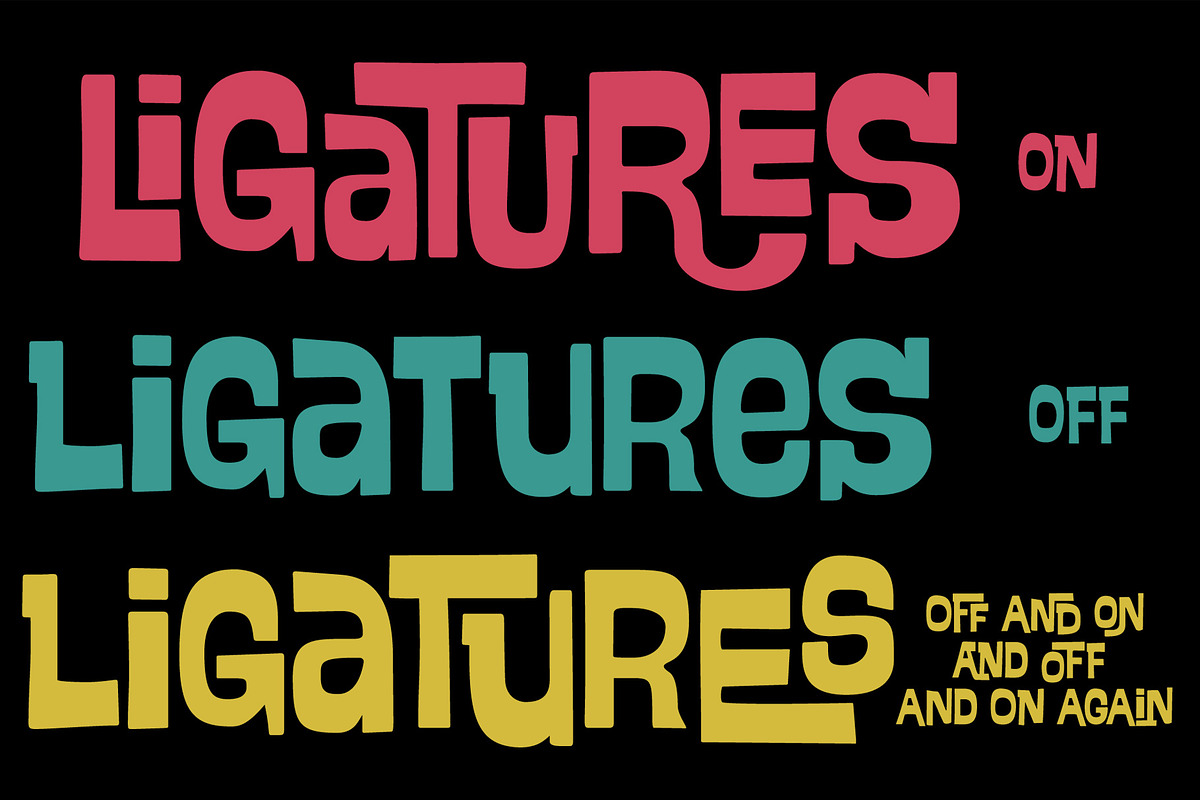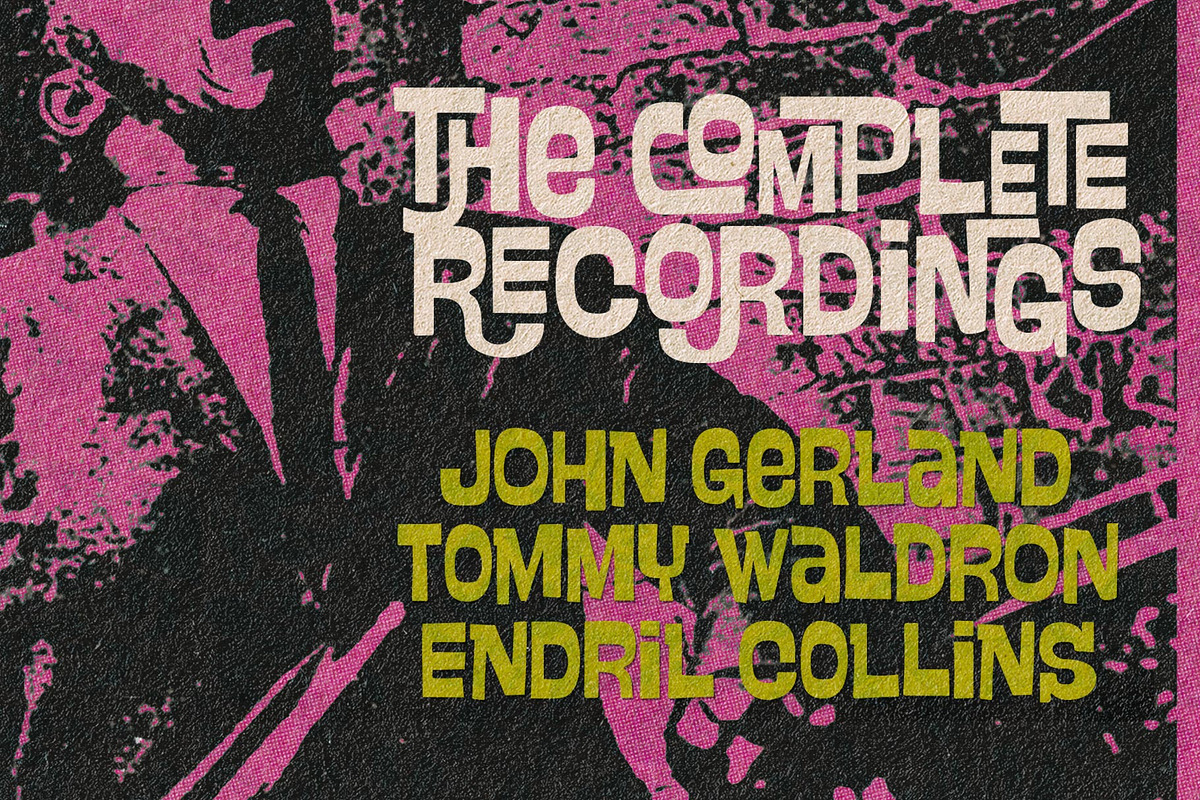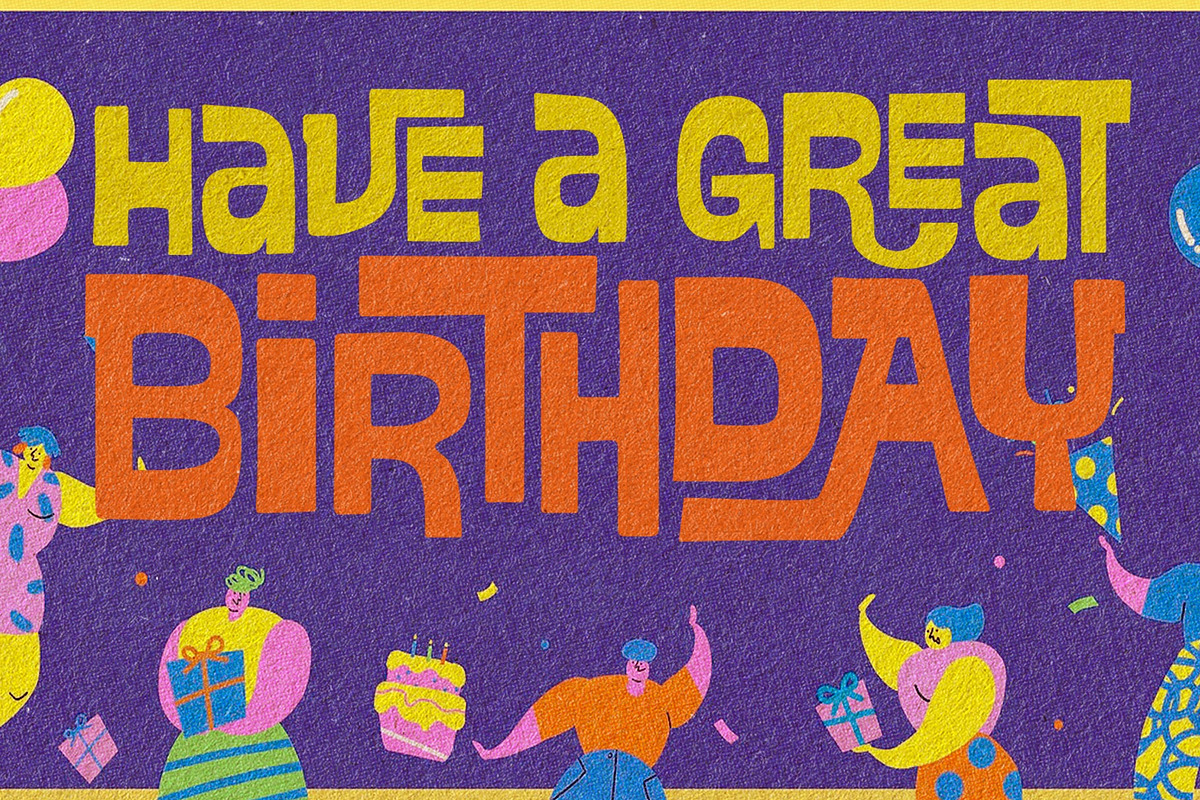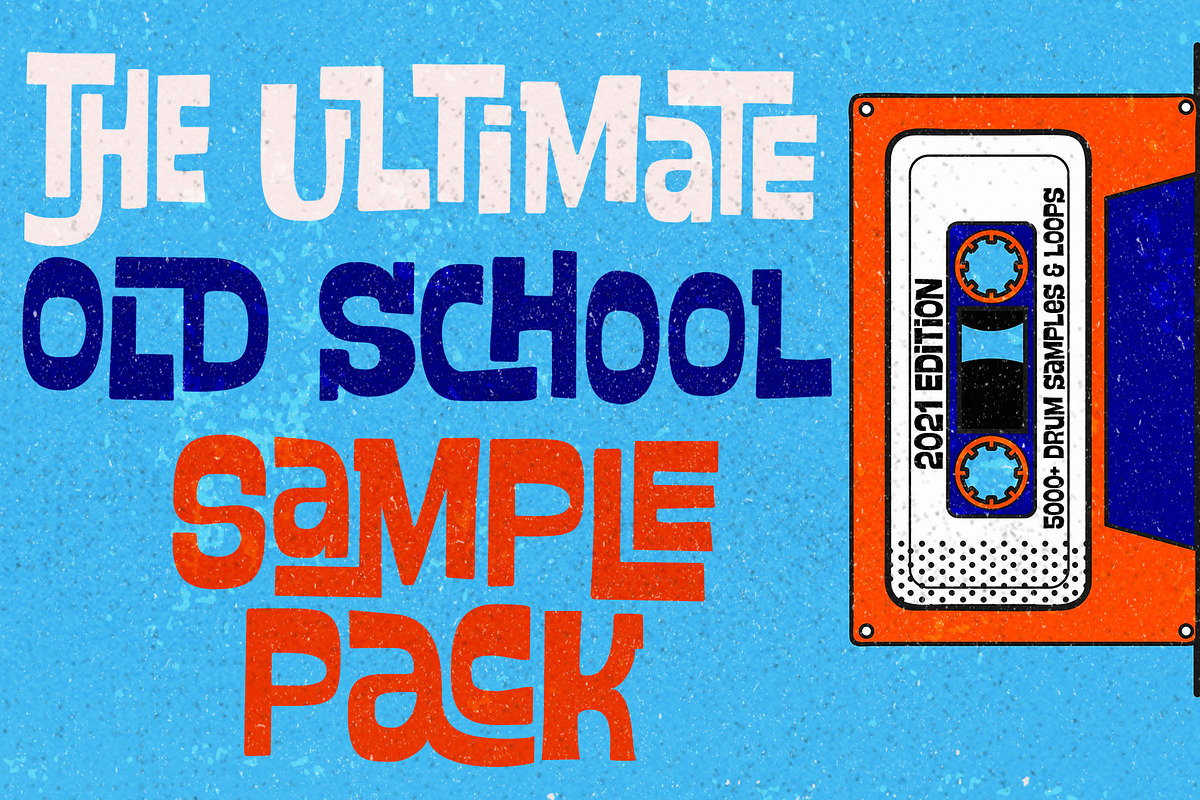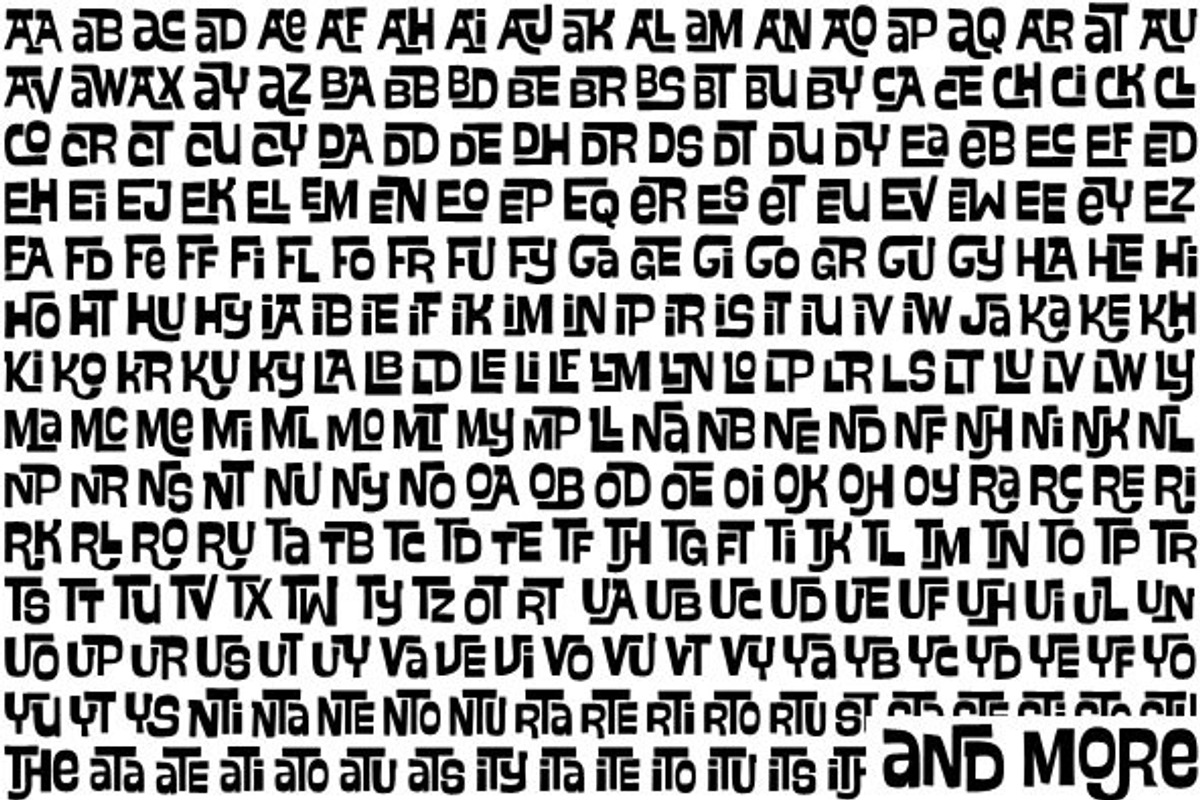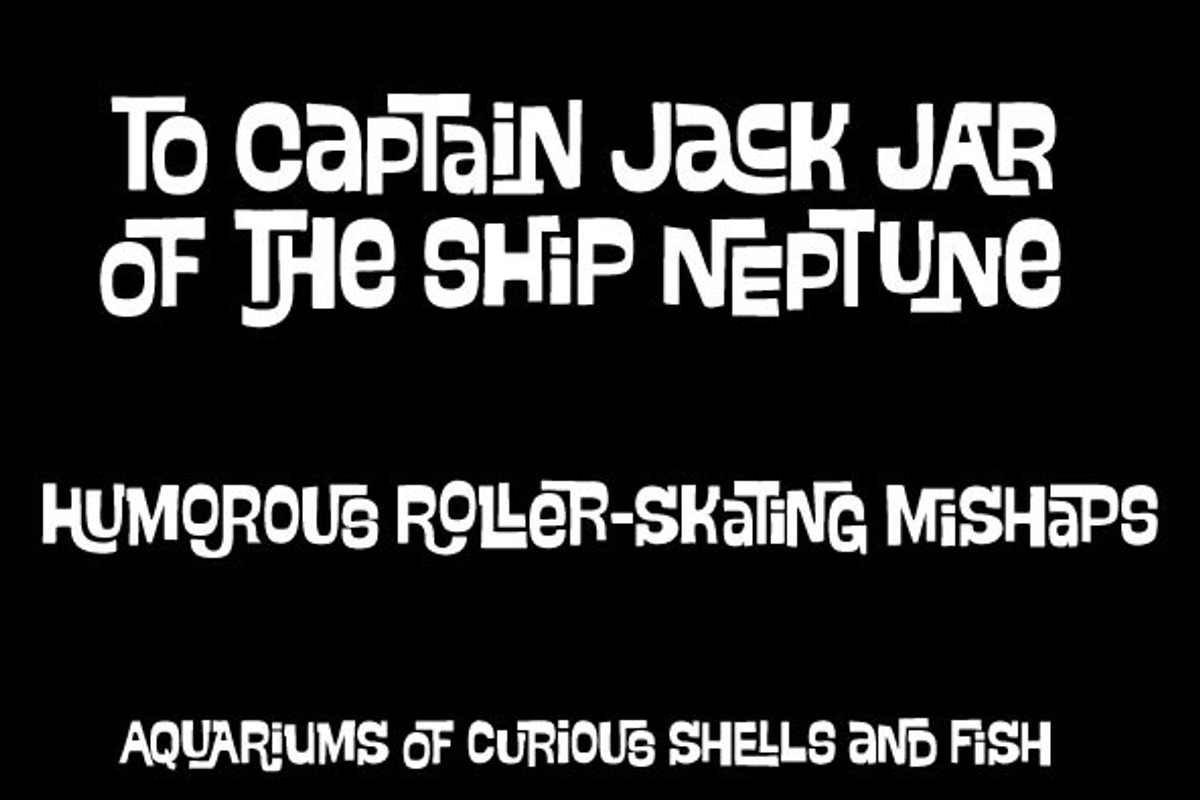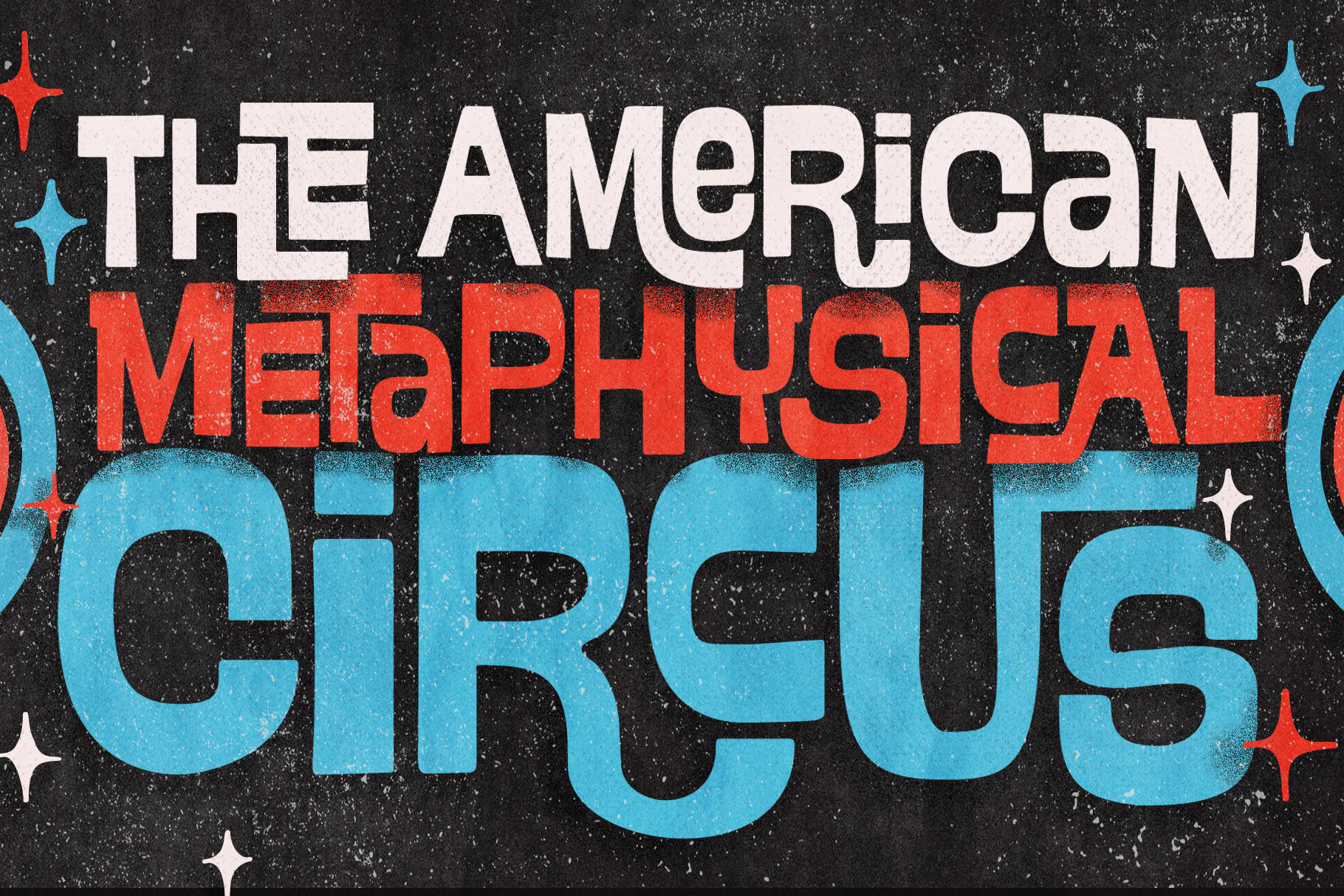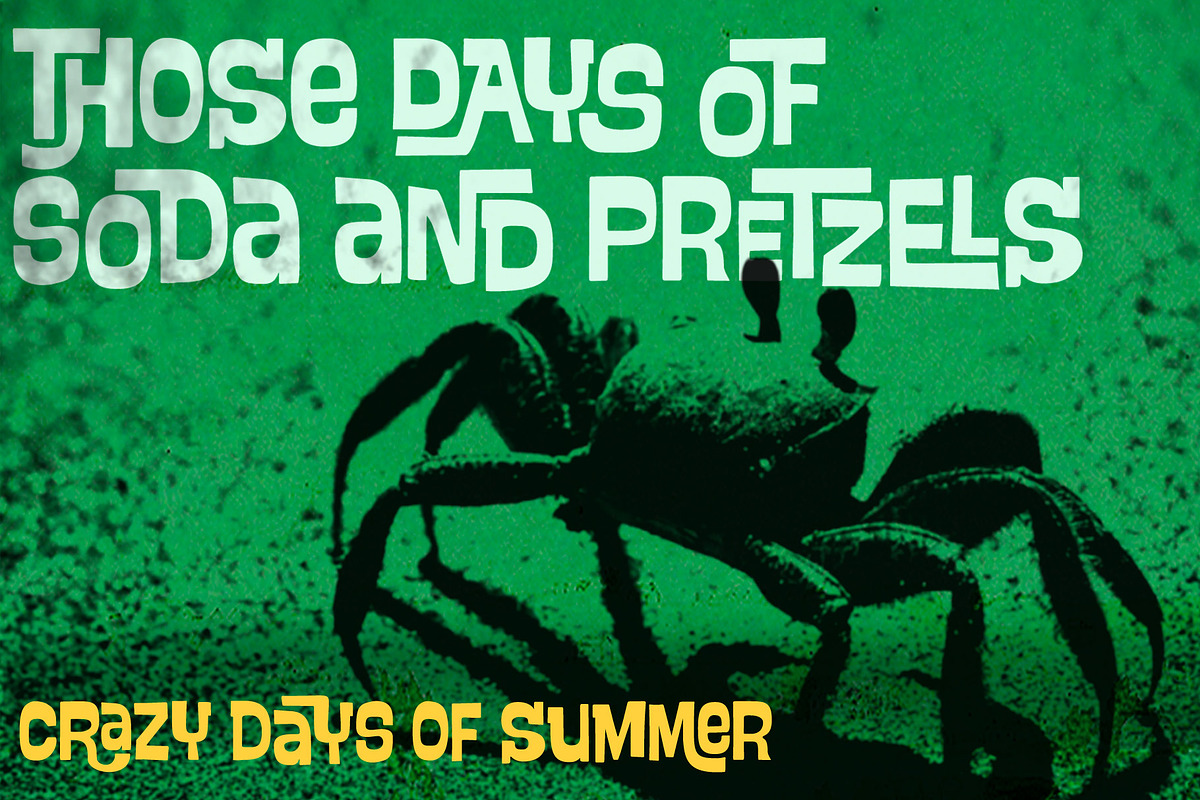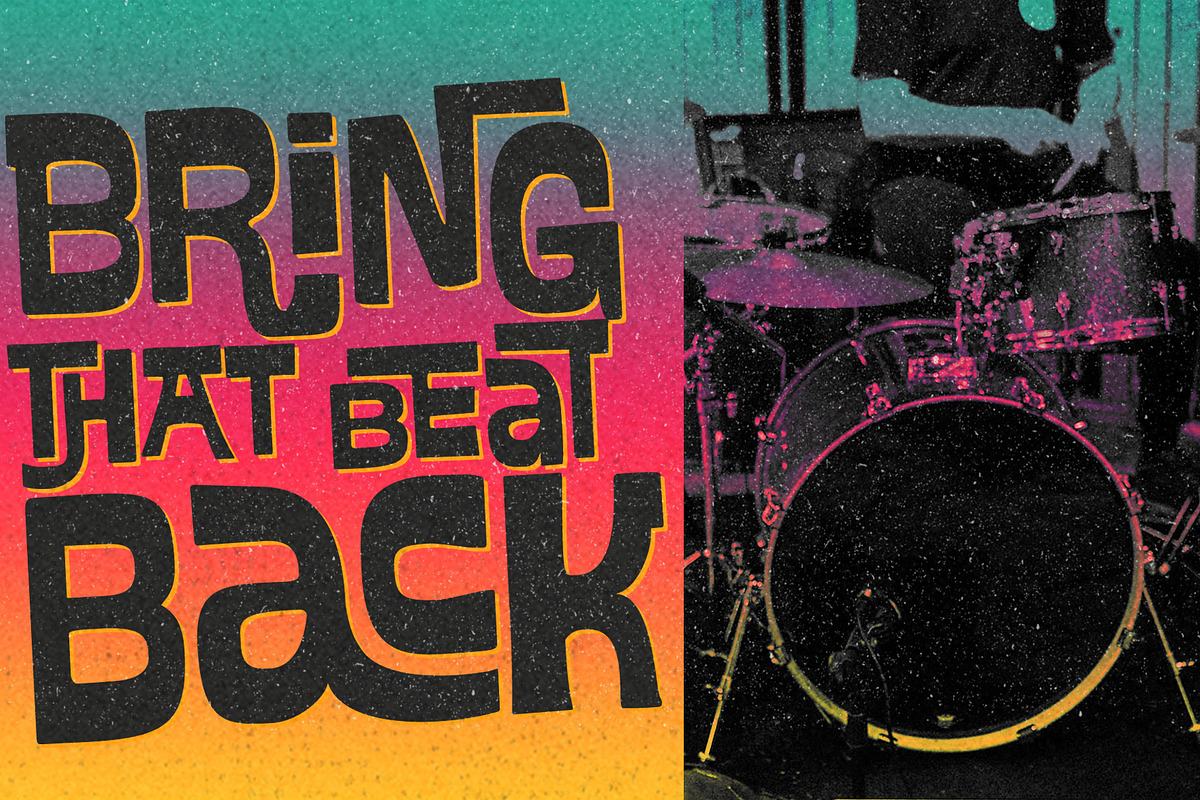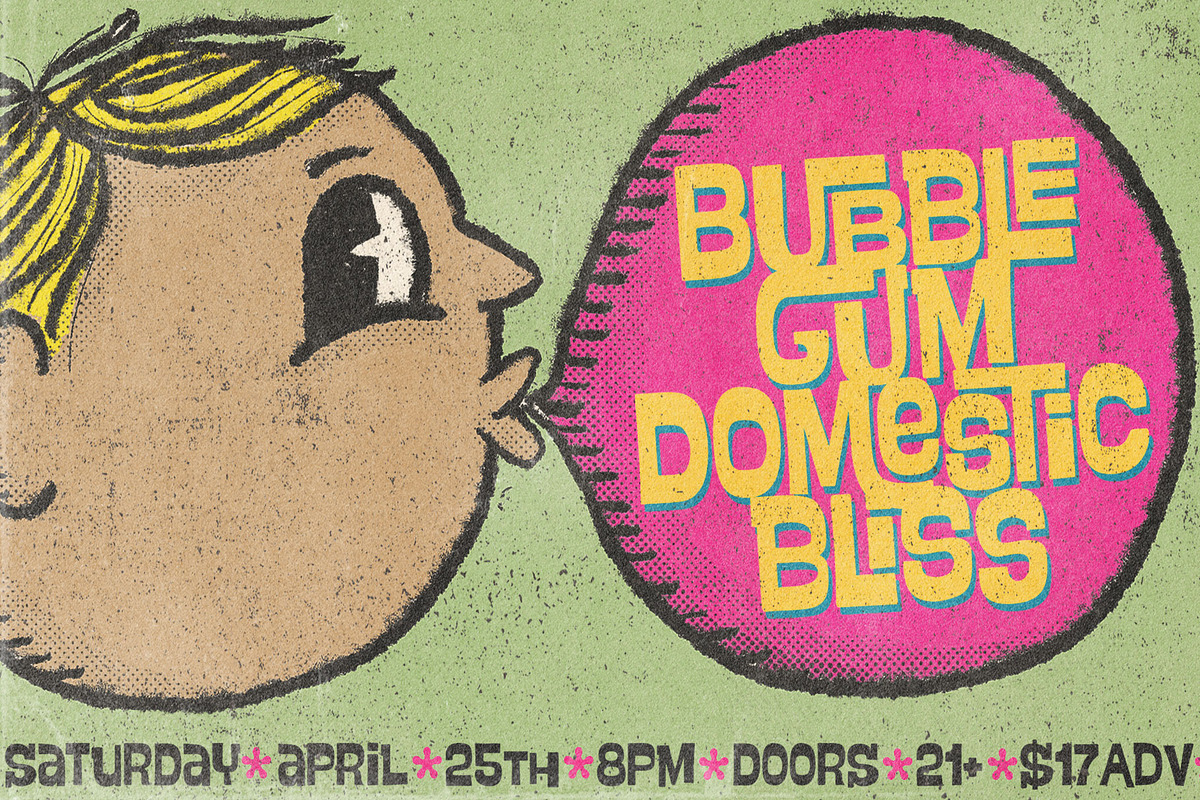
Swung Note is a groovy and dynamic font, packed with more than three hundred smart interlocking pairs that do their magic powered by OpenType programming. Since the letters assume different shapes in the many different ligatures, the compositions look truly handcrafted.
Swung Note is definitely a great – and quite playful – tool for creating amazing custom-lettered-looking designs, while keeping the groove going. Swing-along!